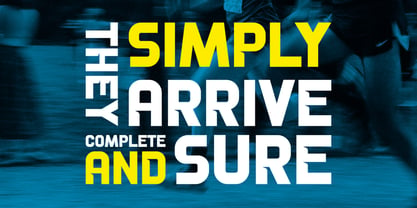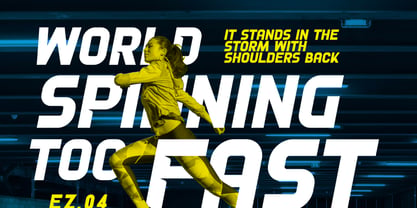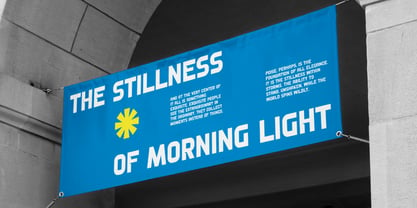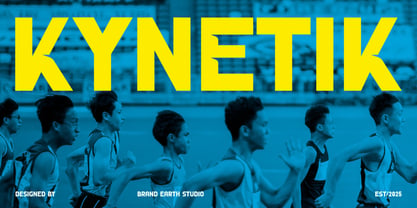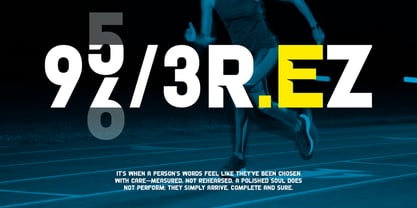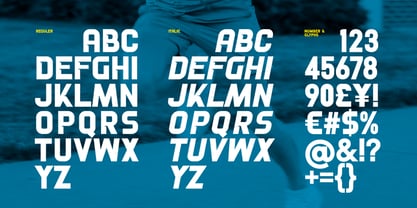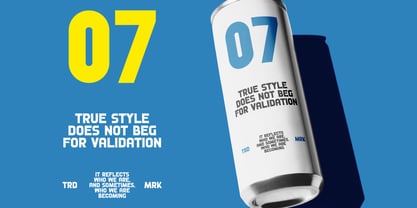
Kynetik
by Brandearth
The Kynetik Font Family was designed by Moch Rasjid Wiyono and published by Brandearth. Kynetik contains 2 styles and family package options. More about this family
Kynetik is a bold, high-impact display typeface built to express motion, strength, and unstoppable energy. Designed with sharp angles, compact proportions, and powerful geometric construction, Kynetik delivers a commanding presence in every composition. Kynetik is ideal for sports branding, athletic apparel, fitness campaigns, esports graphics, racing posters, gym promotions, action movie titles, competitive event marketing, and energetic social media content. Its bold and condensed structure ensures maximum impact across print, digital, and merchandise applications where visibility and intensity are essential.
Designers: Moch Rasjid Wiyono
Foundry: Brandearth